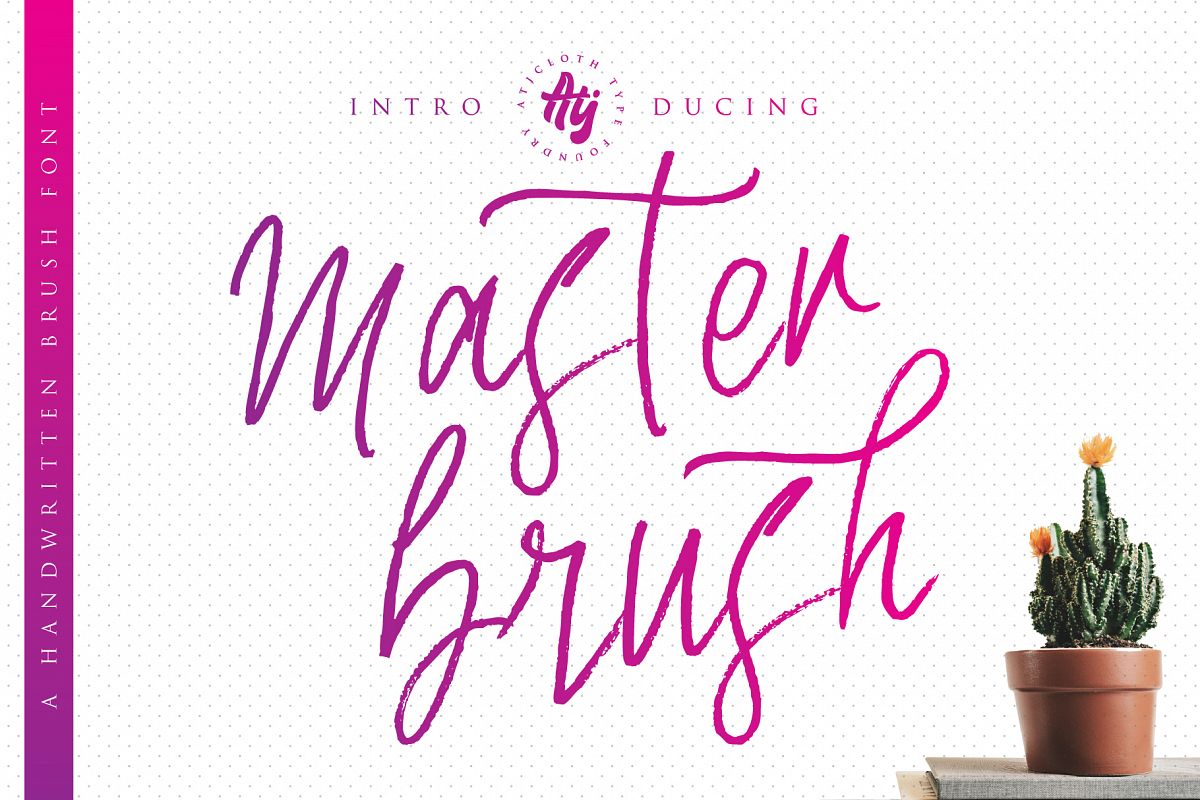
Master Brush
Master Brush is textured brush font, contemporary approach to design, handmade natural with an less regular baseline. Suitable for use in title design. Such as apparel, invitations, books tittle, stationery design, quotes, branding, logos, greeting card, t-shirt, packaging design, poster and more.